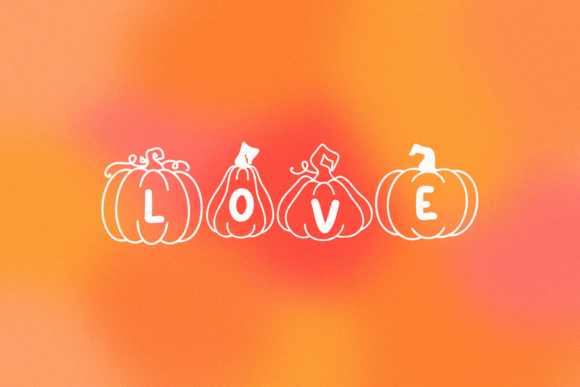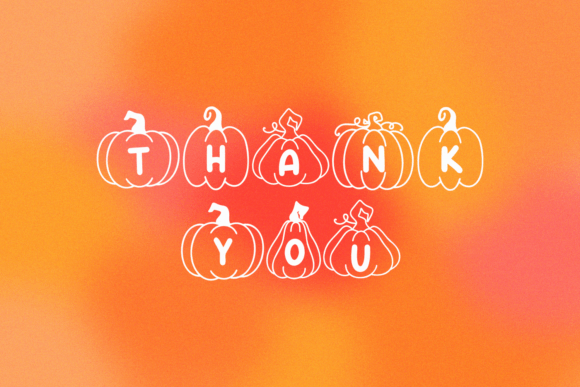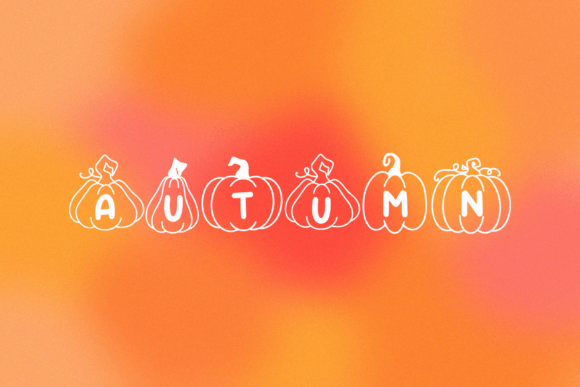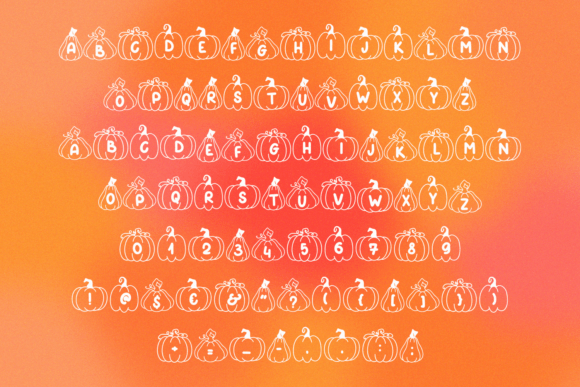
Introduction to Pumpkin Love Font Font
Fonts play a crucial role in design, and the Pumpkin Love Font font is a typeface that brings both character and versatility to any project. Whether you’re working on a branding project, a website, or a print design, the Pumpkin Love Font font offers a unique style that can elevate your work.
Pumpkin Love is a unique and interesting decorative font.
Featuring letters inside a cute and quirky pumpkin this font will bring a feeling of Halloween to each and every project idea .
Key Features of Pumpkin Love Font Font
Why Choose Pumpkin Love Font Font?
The Pumpkin Love Font font is more than just a typeface – it’s a design tool that helps you communicate your message with style and clarity. Its unique character set and versatile design make it suitable for a wide range of applications, from elegant invitations to bold headlines.
With its carefully crafted letterforms and balanced proportions, the Pumpkin Love Font font ensures readability and visual appeal across all mediums.
What makes Pumpkin Love Font font special?
The Pumpkin Love Font font stands out with its unique design, exceptional readability, and versatility across various design applications.